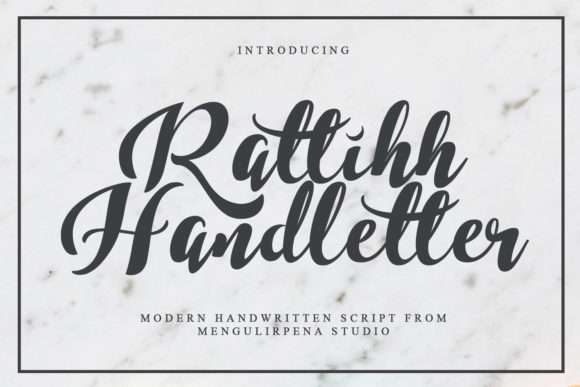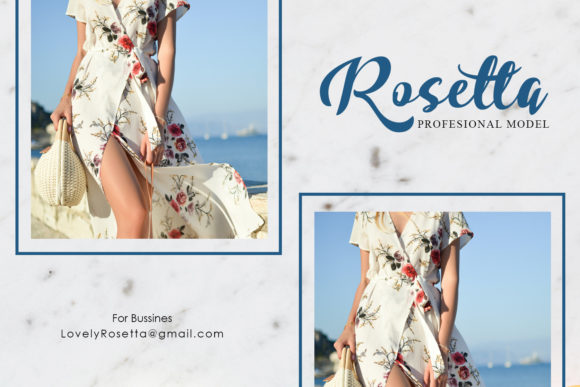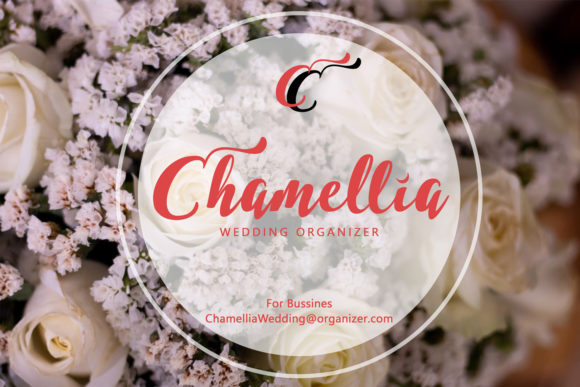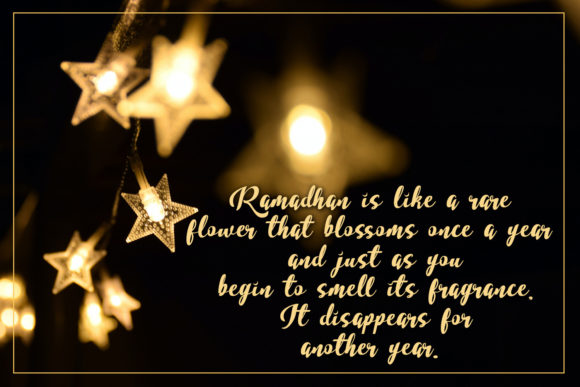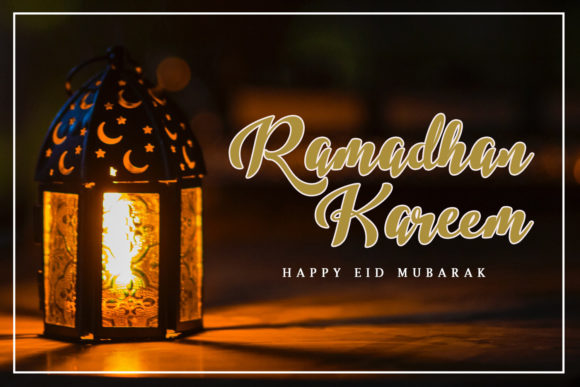
About Rattihh Script Font
Rattihh Script is an elegant and flowing script font that adds a touch of sophistication to your designs. With its smooth and graceful strokes, this font creates a visually stunning look that is perfect for various design projects, including wedding invitations, thank you cards, quotes, greeting cards, logos, and more.
The elegant and flowing nature of Rattihh Script sets it apart and creates a sense of beauty and grace in your designs. The font’s well-crafted characters and flowing script style add a touch of sophistication, making your creations visually captivating and memorable. It adds a personalized and elegant touch, enhancing the overall appeal of your projects.
Rattihh Script is versatile and suitable for a wide range of design applications. Whether you’re working on wedding-related materials, creating heartfelt thank you cards, designing impactful quotes, or crafting stunning logos, this font adapts seamlessly to different contexts. Its elegant and flowing style enhances the overall aesthetic and brings a sense of elegance to your designs.
By incorporating Rattihh Script into your projects, you infuse them with a touch of elegance and personalization. The font’s flowing script style adds a unique and graceful look that makes your designs stand out. Embrace the confidence of Rattihh Script, and notice how it enhances the look of your wedding invitations, thank you cards, quotes, greeting cards, logos, and more, bringing a sense of beauty and sophistication.
In summary, Rattihh Script is an elegant and flowing script font that adds a touch of sophistication to your designs. Its smooth and graceful strokes create a visually stunning composition. Embrace the versatility of Rattihh Script, and let it enhance the look of your wedding invitations, thank you cards, quotes, greeting cards, logos, and more, adding a personalized and elegant touch that captures attention and leaves a lasting impression.